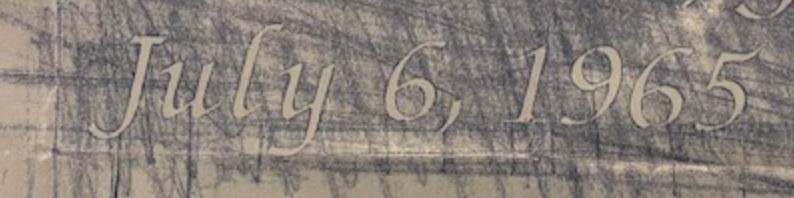
It looks like Zapf to me, but different.  I have searched for it and can’t find any exact.  Any advice would be greatly appreciated!
Hello, this appears to be Zapf Chancery Italic, with the ‘J’ swapped out with one from another font. it is possibly from Regular Zapf Chancery, but manually slanted, or perhaps the ‘J’ from Lucida Calligraphy, which is another chancery style font.